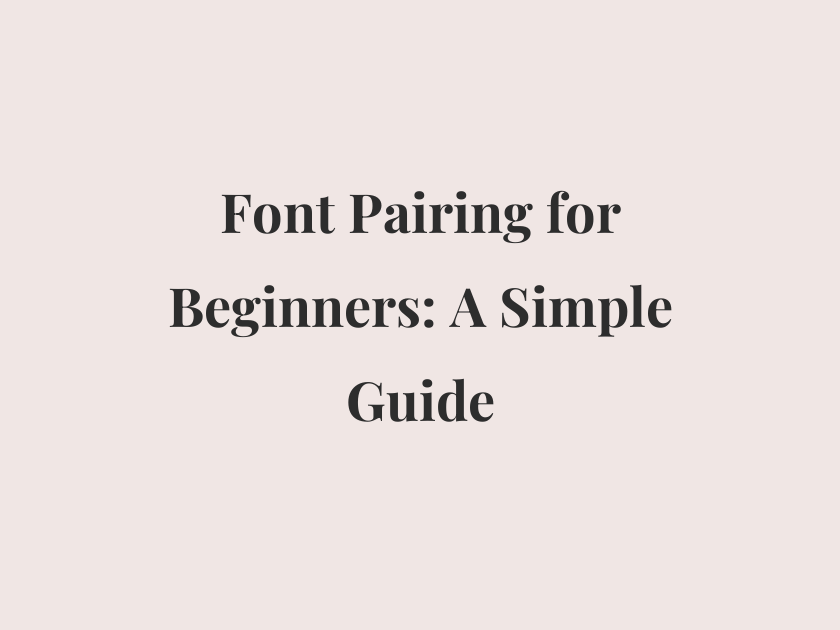
35 Font Pairing for Beginners: A Simple Guide
Choosing a font pairing does not require design school training; it requires a small set of reliable principles and a handful of trustworthy combinations you can return to again and again. Every pairing below combines a heading font with a body font that share enough character to feel intentional and enough contrast to stay readable, using only free Google Fonts pairings so you can put them to work immediately on a website, resume, or brand project.
Playfair Display + Noto Sans
Timeless Editorial Style
This classic combination balances an elegant, high-contrast serif with a clean, neutral sans for reading comfort.
The dramatic thick-thin strokes of Playfair Display read as instantly editorial, while Noto Sans’s plain letterforms keep long paragraphs comfortable. This has become a default pairing for magazines and blogs because the contrast between display flourish and unadorned body text feels effortless.
Merriweather + Open Sans
Warm Reading Experience
Merriweather's sturdy serifs pair with Open Sans's friendly curves for a warm, approachable feel.
Merriweather was designed specifically for on-screen reading, and Open Sans shares that same practical, humanist spirit, so the two sit together without friction. This is a dependable starting point for blogs, documentation, and small business sites.
Montserrat + Lora
Geometric Meets Literary
Montserrat's geometric precision contrasts nicely with Lora's calligraphic, book-like warmth.
Pairing a geometric sans with a moderately contrasted serif gives headlines a confident, modern edge while keeping body text approachable. Try this combination for lifestyle brands or portfolio sites that want warmth alongside a contemporary look.
Oswald + PT Sans
Bold Condensed Statement
Oswald's condensed capitals stand out sharply above the open, practical letterforms of PT Sans.
Condensed display fonts need a body partner with generous spacing so paragraphs do not feel cramped after a tight headline, and PT Sans provides exactly that breathing room. This works well for news layouts, sports content, or anywhere a headline needs impact.
Poppins + Karla
Friendly Modern Interface
Poppins' rounded geometry feels approachable next to Karla's crisp, grotesque-inspired body text.
Both fonts share a contemporary, low-fuss character, so the shift from heading to body feels like a change in scale rather than a change in mood. This suits startups, app landing pages, and other digital products aiming for a friendly, modern voice.
Abril Fatface + Mulish
Fashion Forward Statement
Abril Fatface's dramatic contrast demands a restrained partner like Mulish to let headlines breathe.
High-contrast display serifs work best next to an understated sans that stays out of the way, and Mulish’s neutral letterforms do exactly that. This combination flatters fashion, beauty, and editorial brands that want a striking moment followed by calm reading.
Raleway + Merriweather
Elegant Thin Headlines
Raleway's thin, elegant capitals pair surprisingly well above Merriweather's sturdy serif paragraphs.
Mixing a light sans headline with a substantial serif body reverses the usual formula, giving a page distinctive rhythm while keeping long-form text easy to read. Consider it for personal essays, portfolio bios, or about pages.
Libre Baskerville + Nunito Sans
Classic Book Feel
Libre Baskerville was built for screen reading, and Nunito Sans keeps supporting text soft and rounded.
Both fonts were designed with legibility as a first priority, so this pairing rarely misfires even in dense layouts. It is a safe, effective choice for blogs and small publishing projects.
Cormorant Garamond + Work Sans
Delicate Serif Sophistication
Cormorant Garamond's delicate, high-fashion curves need a plain, sturdy sans like Work Sans to ground them.
Because Cormorant Garamond is so light and refined, it needs a body font with enough weight and neutrality to keep the page balanced, which is exactly Work Sans’s strength. This combination suits weddings, boutique brands, and other projects seeking a refined, editorial feel.
Bitter + Rubik
Sturdy Slab Confidence
Bitter's slab serifs bring a grounded confidence that pairs cleanly with Rubik's slightly rounded corners.
Slab serifs and rounded sans fonts share a certain sturdiness, which keeps this pairing feeling cohesive despite the contrast in style. Good for small business branding that wants friendly but reliable.
Archivo Black + Archivo
Bold Family Consistency
Using one weight for headlines and another for body text guarantees flawless proportions since they share one skeleton.
Pairing two weights from the same type family is one of the simplest strategies for beginners, since spacing, x-height, and letterforms are already coordinated by design. This removes the guesswork of matching two unrelated fonts.
Start with contrast, not similarity: a headline font should look and feel different enough from the body font that readers sense a hierarchy at a glance.
Limit yourself to two fonts per project while you are learning; a third font almost always muddies a layout before it improves it.
Check that both fonts have a comparable x-height so paragraphs do not look uneven when the type changes from heading to body.
Always preview a pairing at the actual sizes you plan to use, since some combinations that look fine in a mockup fall apart at real reading sizes.